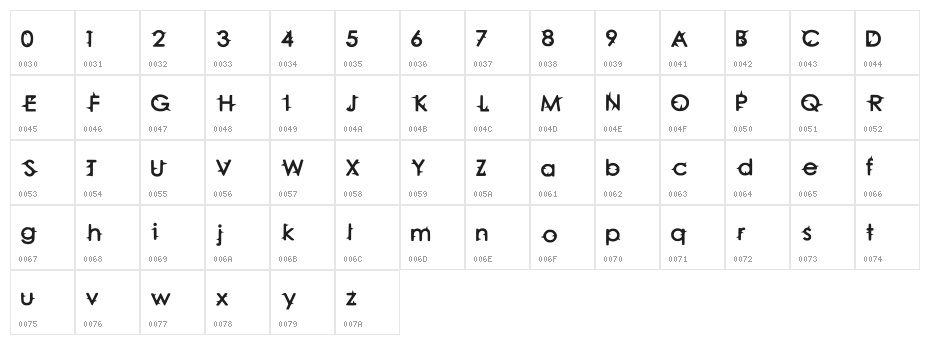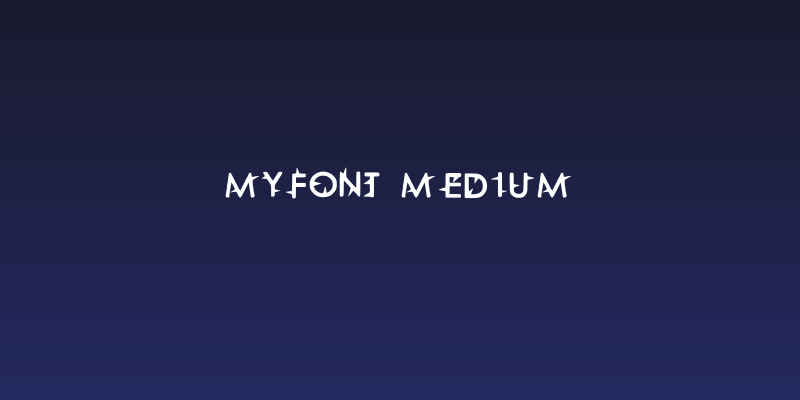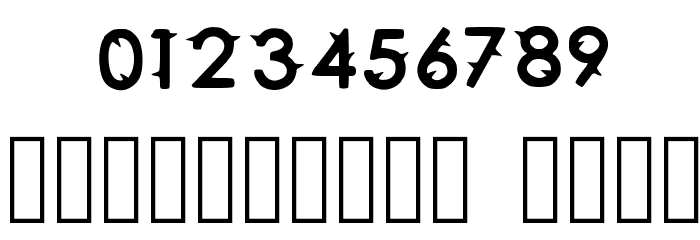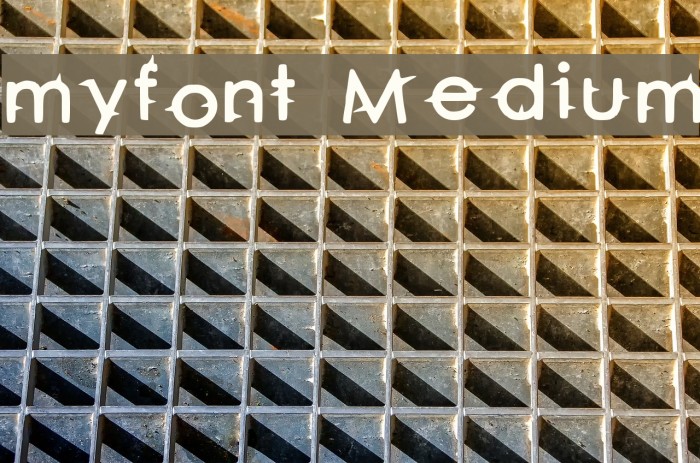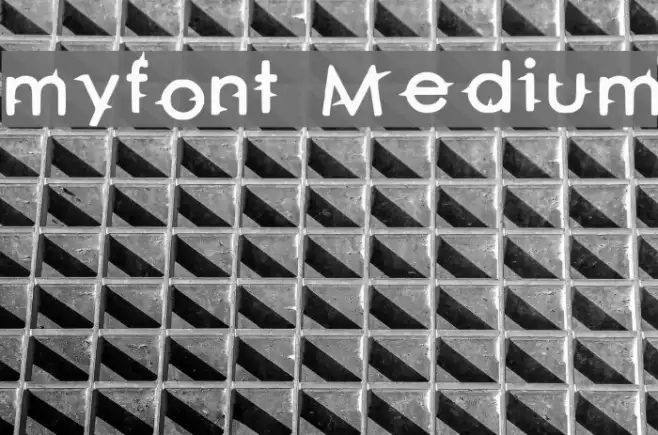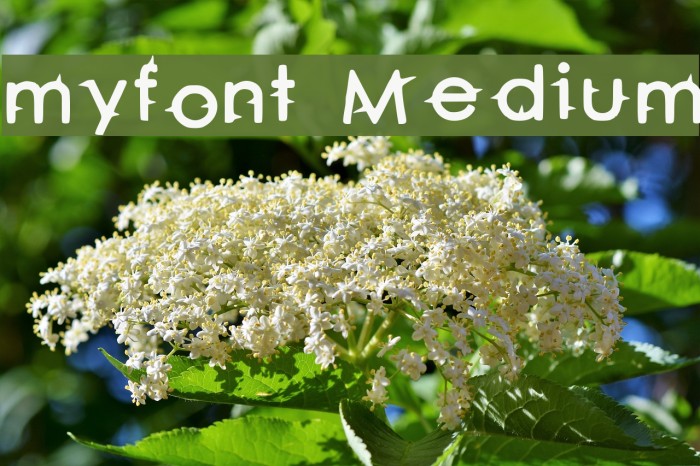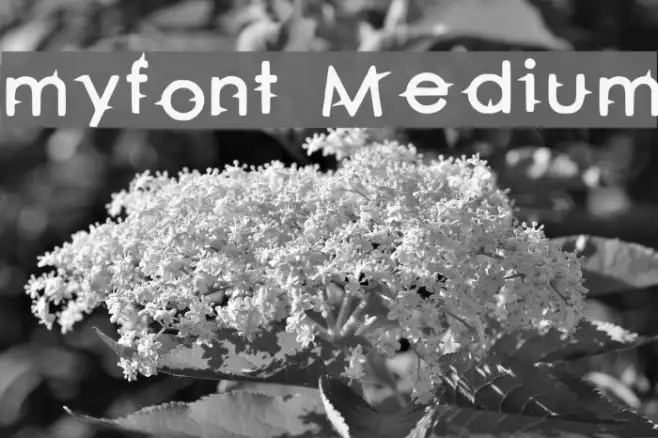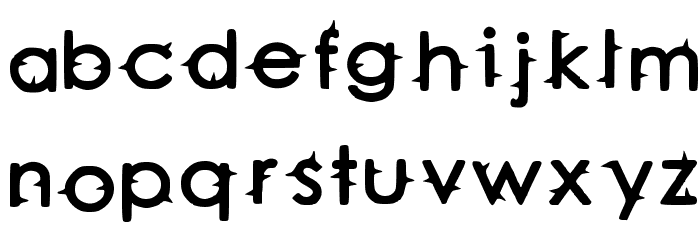
myfont Medium Font
myfont Medium Description
This font features a unique and playful design with a decorative flair. Each character is crafted with a bold, artistic style that incorporates sharp angles and unexpected curves, giving it a distinctive and eye-catching appearance. The uppercase letters are particularly striking, with a strong presence that commands attention. The lowercase letters maintain the same artistic integrity, offering a cohesive look across the alphabet. Numbers and special characters follow suit, ensuring consistency throughout. This font is perfect for projects that require a bold statement or a creative touch.